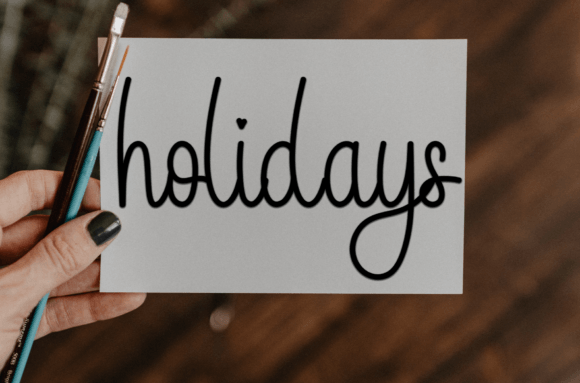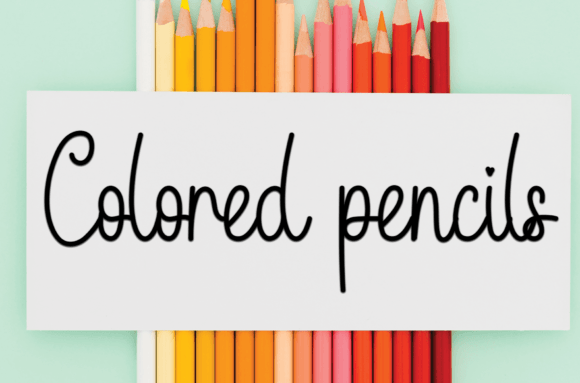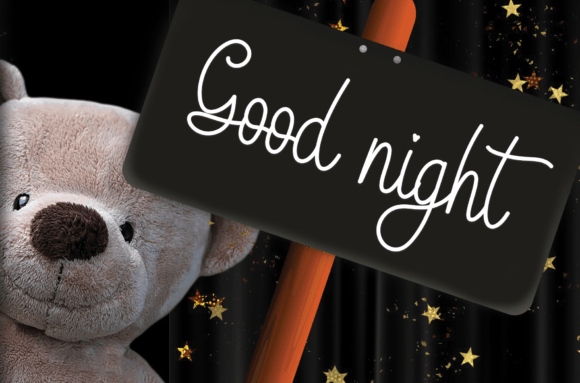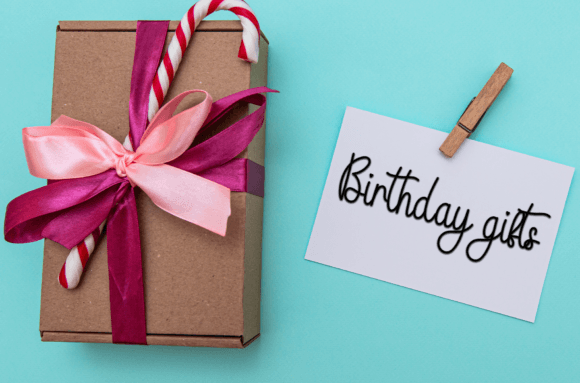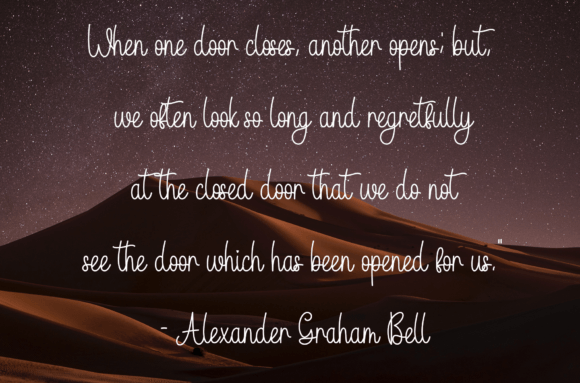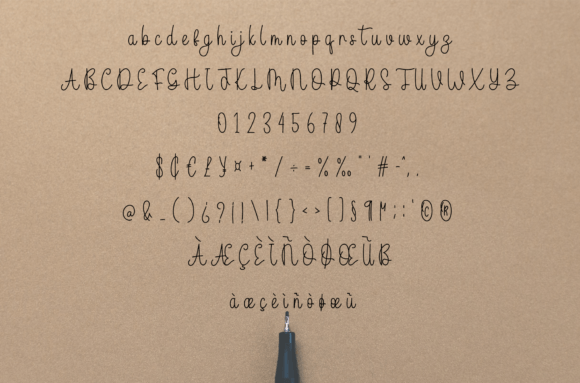
The Sweetest Touch: Unwrapping the Baby Honey Font
Have you ever stumbled upon a font that makes you feel like you’re scribbling love letters to your best friend? That’s exactly what happened to me when I discovered the Baby Honey Font. I was working on a wedding invitation design and needed a font that would capture the joy and sweetness of the occasion. As I browsed through my font library, the Baby Honey Font caught my eye, and I knew I had found the perfect match.
The Baby Honey Font is a delightful handwritten font that exudes warmth and friendliness. Its carefree and relaxed vibe makes it perfect for designing wedding invitations, cards, or any other project that needs a touch of whimsy. For designers, the Baby Honey Font is a valuable addition to their toolkit, offering a unique and versatile font that can be used in a variety of creative projects.
Baby Honey Font Key Features
- Font Family: Baby Honey Font is a unique, handwritten font family designed to evoke a sense of warmth and playfulness.
- Unique Characteristics: This font features a distinctive, handwritten style with irregular letterforms and subtle imperfections, giving it a natural, hand-drawn feel.
Review of Baby Honey Font
I’ve had the chance to work with the Baby Honey Font, and I must say it’s a unique and charming addition to any design project. ✨ The font’s cursive script is reminiscent of handwritten notes and adds a touch of warmth to digital designs. The various weights and styles available make it versatile and easy to incorporate into different contexts.
Here are some specific aspects that I think work well:
- ✨ The font’s playful and whimsical feel makes it perfect for children’s products, greeting cards, or any project that requires a lighthearted tone.
- ✨ The font is highly legible, even at smaller sizes, making it suitable for body text or headlines.
However, I do have some reservations:
- ⚠️ The font may not be suitable for formal or professional projects, as its playful nature may not convey the desired level of sophistication.
- ⚠️ Some users may find the font’s cursive script difficult to read at extremely small sizes or in low-contrast environments.
Overall, I think the Baby Honey Font is a great addition to any designer’s toolkit, especially for projects that require a lighthearted and playful tone. While it may not be suitable for all projects, its unique charm and versatility make it a valuable resource for designers looking to add some personality to their designs.
Tips for Getting the Most Out of Baby Honey Font
For best results, use Baby Honey Font in designs that require a playful and whimsical feel. Pair it with bright colors and cute illustrations to create a cohesive and eye-catching design.
Baby Honey Font is perfect for:
- Baby shower invitations and decorations
- Playful branding and marketing materials
- Cute and whimsical social media graphics